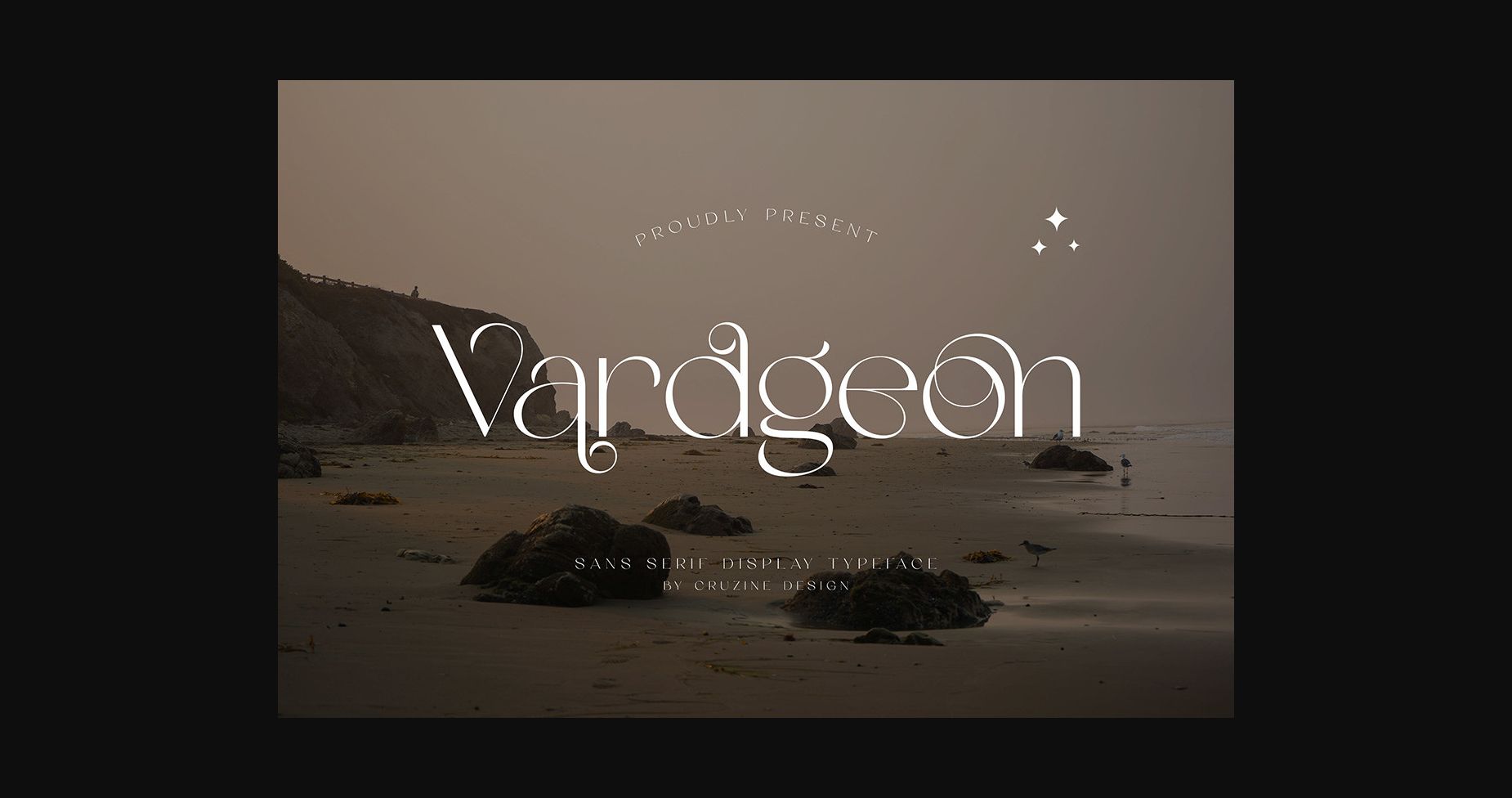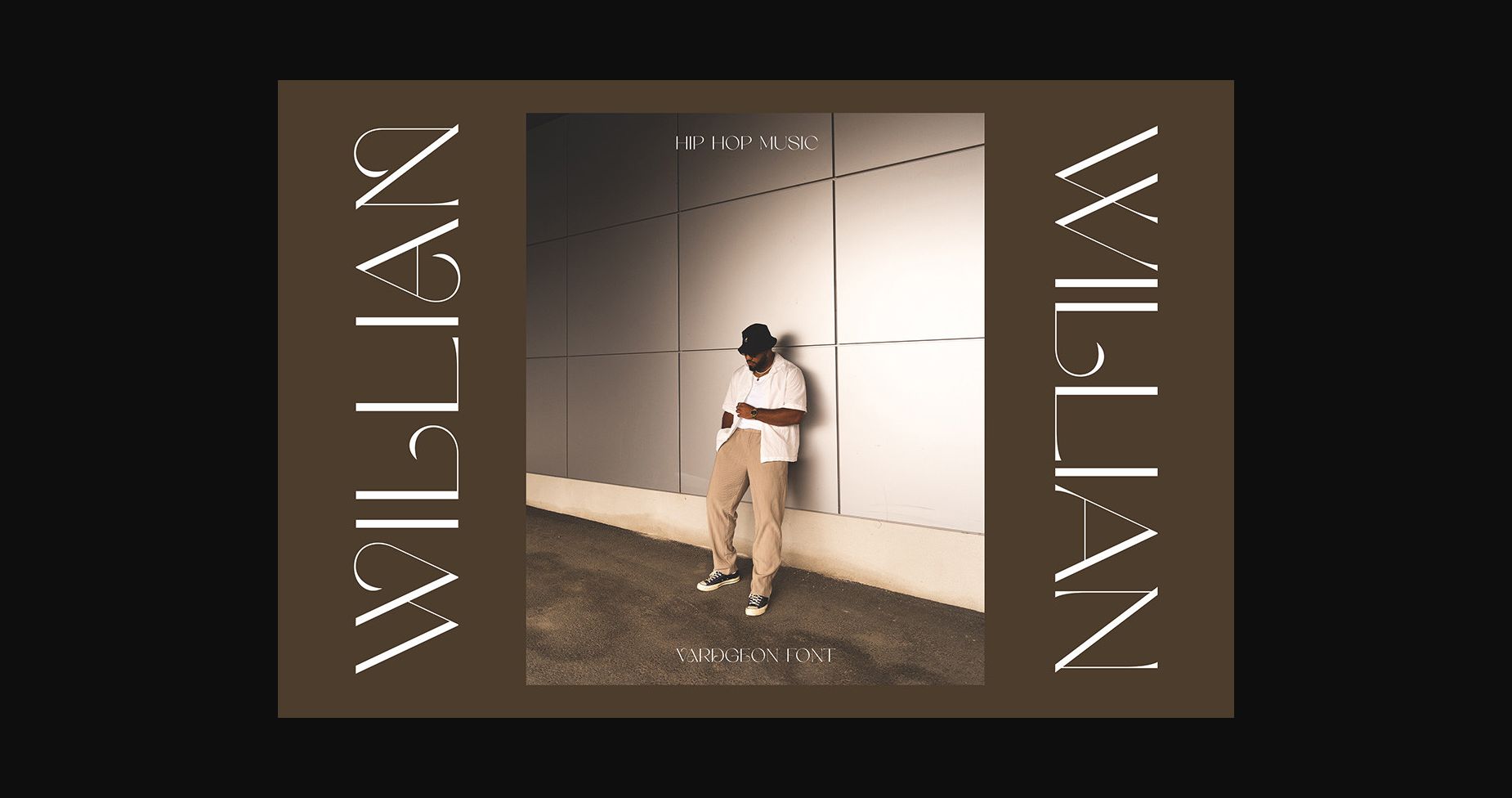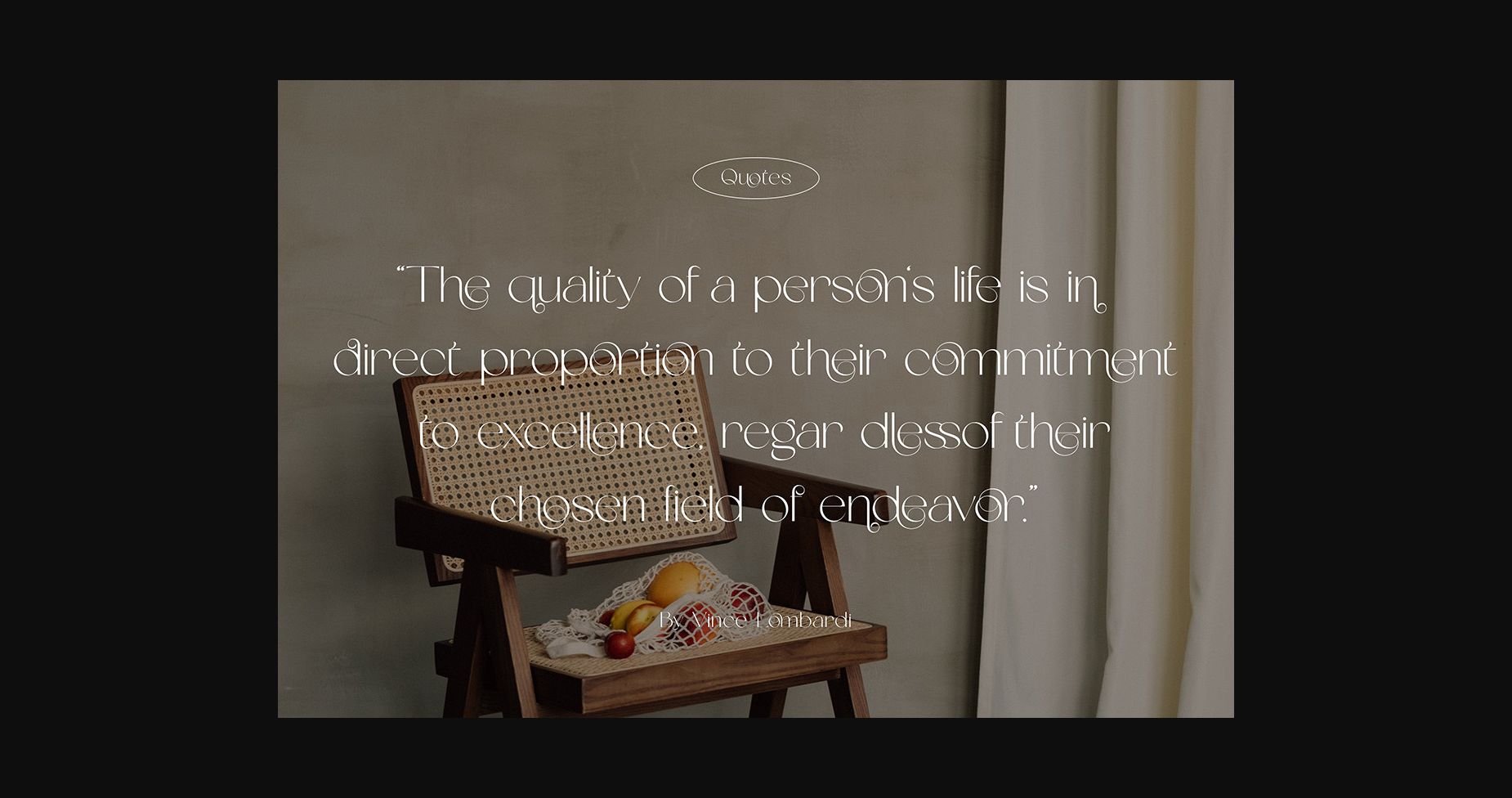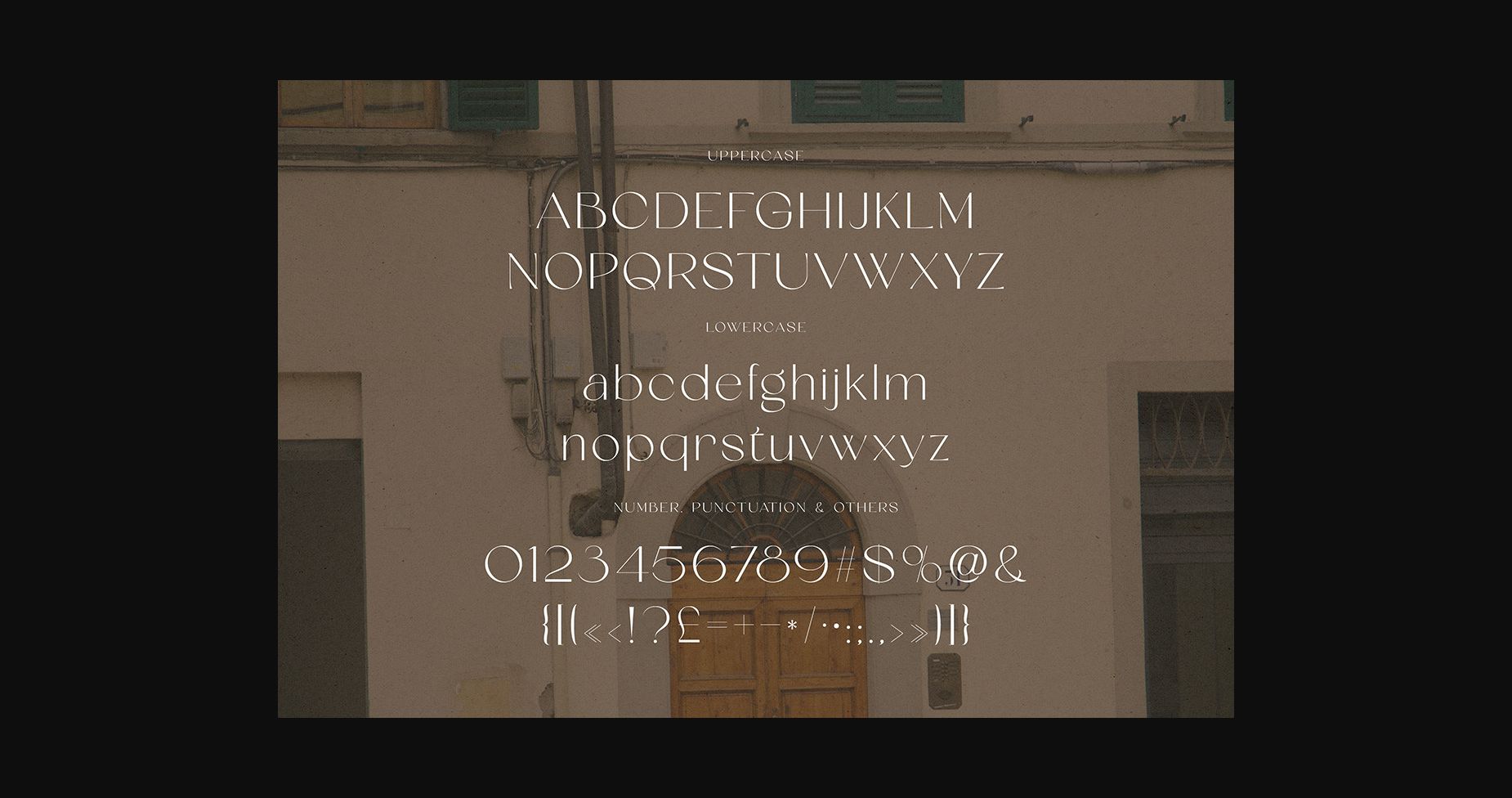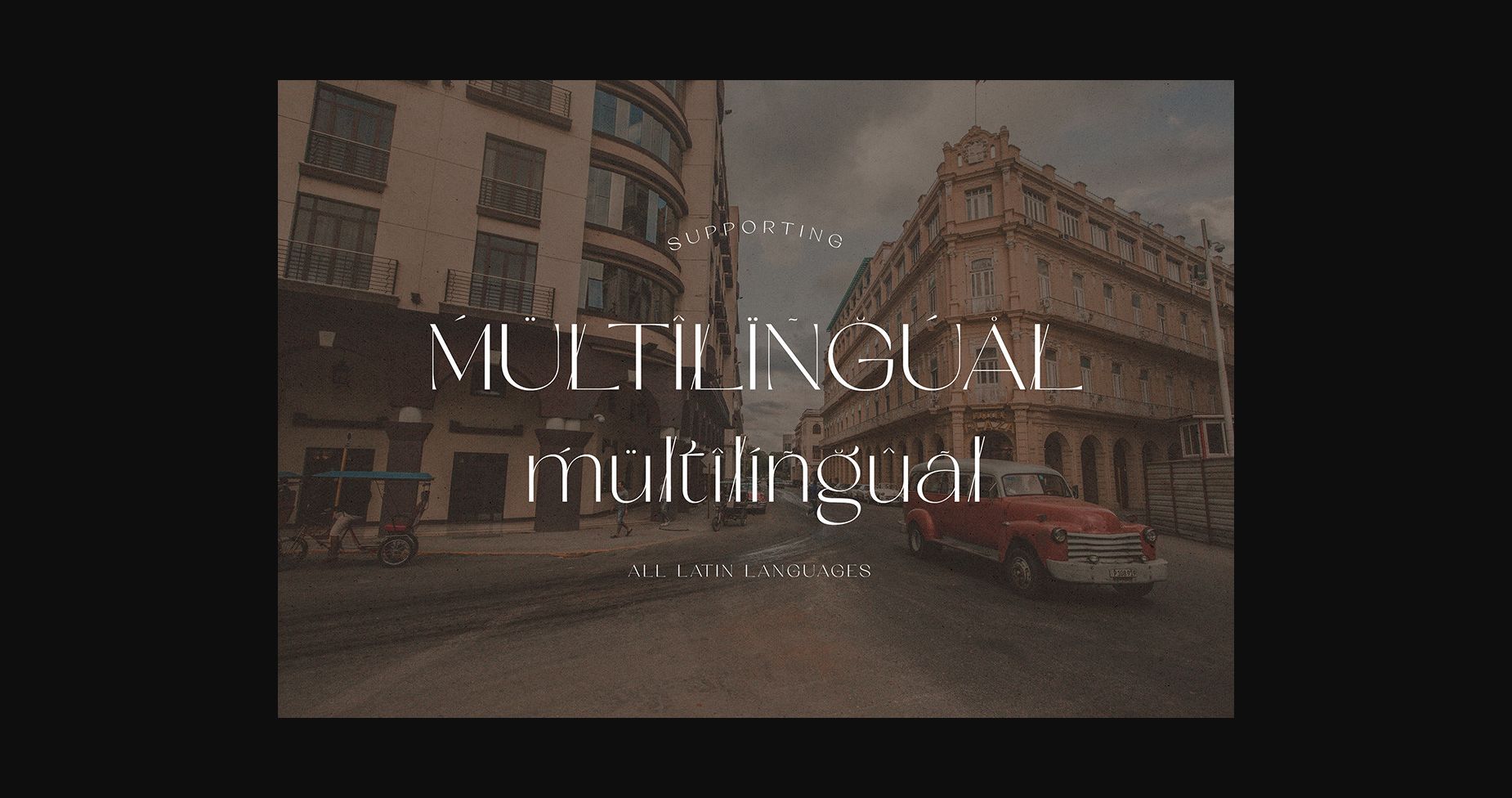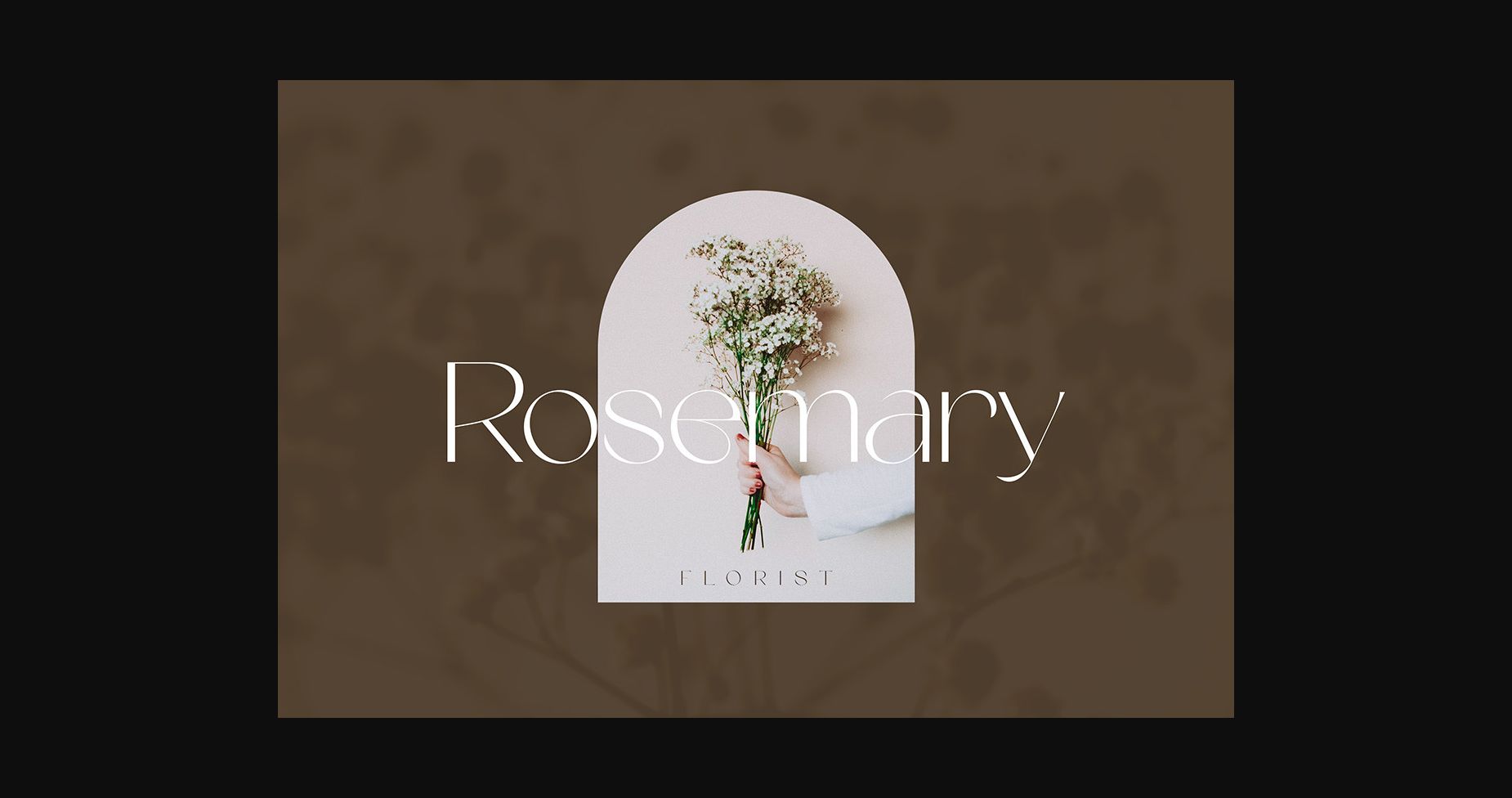
Vardgeon Font
About Vardgeon Font
Vardgeon is a sans-serif font that is the epitome of style and exclusivity. Its modern and sleek design exudes sophistication and is perfect for high-end branding, advertising, and editorial layouts. With its unique features and eye-catching appeal, this font is a must-have for those who want to make a statement and elevate their designs to the next level.